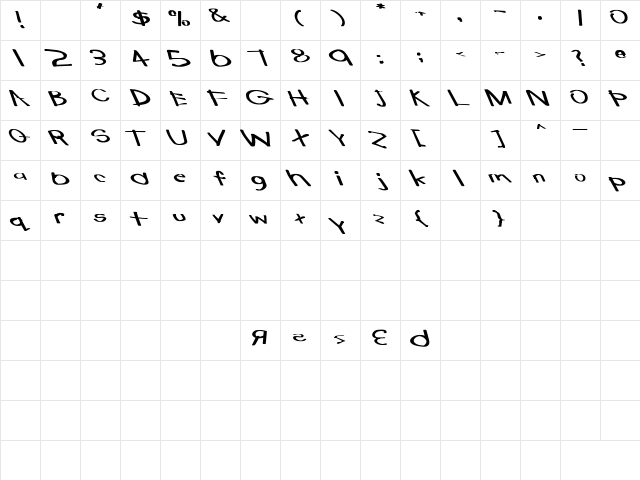
Tabatha Ex bold Lefties Bold Bold
Design Context for Tabatha Ex bold Lefties Bold
Tabatha Ex bold Lefties Bold is a composed and adaptable typeface that performs quietly and consistently across a wide range of design contexts. Its bold stroke weight gives it real presence on the page.